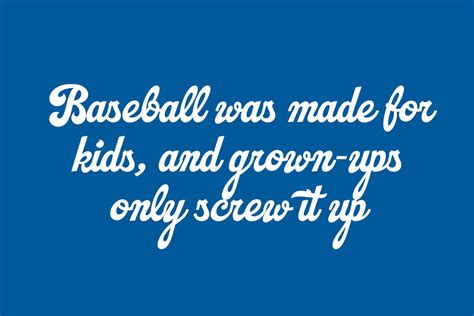
Decoding The Dodgers: Unveiling The Logo's Font Secrets
Decoding the Dodgers: Unveiling the Logo’s Font Secrets
Hey baseball fanatics, ever wondered about the iconic look of the Los Angeles Dodgers logo? Yeah, that classic script that’s been plastered across hats, jerseys, and everything in between for ages. Well, buckle up, because we’re about to dive deep and uncover the font secrets behind the Dodgers’ legendary branding. We’ll be talking about the Dodgers logo font , its history, and how it contributes to the team’s visual identity. Get ready to learn something cool about your favorite team!
The Dodgers’ Font: A Timeless Classic
Alright, guys, let’s get straight to the point: the primary font used in the Los Angeles Dodgers logo is a custom script. That’s right, it’s not a font you can just download from the internet and slap on your own merch. It was specifically designed for the team, making it super unique and instantly recognizable. The elegant, flowing script gives off a sense of timelessness and sophistication, perfectly representing the Dodgers’ rich history and legacy in the world of baseball. The curvature and style of the font, guys, have been the subject of debate and even some professional studies, but the truth is the font is considered proprietary to the team.
The font itself isn’t available for public use, which makes the Dodgers’ logo even more special. This exclusivity helps the team protect its brand and ensure that its visual identity remains consistent. It also adds a touch of mystique, making fans curious and interested in the story behind the logo. The unique script is a key element of the Dodgers’ identity, creating a strong connection with its fans and helping the team stand out from the competition. Think about it: when you see that script, you immediately think of the Dodgers, right? That’s the power of a well-designed logo and a carefully chosen font. The Los Angeles Dodgers logo is more than just a collection of letters; it’s a symbol of tradition, excellence, and the spirit of Los Angeles. So, next time you see that logo, remember the amount of consideration and care that went into creating it. It’s a testament to the importance of branding and visual identity in today’s world.
Over the years, the Dodgers have made minor adjustments to the script, fine-tuning it for better readability and visual appeal. The essence of the font has remained consistent, preserving the familiar look that fans have come to know and love. These subtle changes ensure the logo remains fresh and relevant while still honoring the team’s legacy. It’s a delicate balance that the Dodgers have managed to master. The meticulous approach to brand management extends beyond the font itself. The color palette, primarily featuring Dodger blue and white, plays a crucial role in the logo’s overall impact. The combination of the script font and the iconic color scheme creates a cohesive and instantly recognizable brand identity that has become synonymous with the Dodgers.
A Deep Dive into the Font’s Characteristics
Let’s get down to the specifics, shall we? This font is all about that smooth, flowing script, the defining element of the Dodgers’ branding. It’s got those elegant curves and a sense of motion that captures the energy of a baseball game, you know? The script’s design incorporates a balance of grace and strength, mirroring the Dodgers’ on-field performance. The letters connect seamlessly, creating a harmonious and aesthetically pleasing visual. Each curve and stroke has been carefully crafted to give the logo its unique personality. The font’s design subtly influences the overall feeling of the team’s brand. It communicates a sense of tradition, sophistication, and timelessness. The font’s character is a critical element in the team’s overall image and appeal. The logo’s visual design is a carefully considered project that takes time and effort to get right. This ensures the design is consistent with the team’s values and brand identity.
When we analyze the font, we notice features such as the slant of the letters, the varying thickness of the strokes, and the way the letters connect. The slant gives the logo a sense of dynamism. The variations in stroke thickness add depth and visual interest. The way the letters connect creates a feeling of unity and flow. When the font is applied to a hat or jersey, it comes alive and becomes a statement of identity. The script font’s legacy extends beyond baseball. It has become a cultural icon, representing Los Angeles and its passion for sports. The Dodgers’ logo is an example of effective branding and design, standing the test of time. The logo remains instantly recognizable and beloved by fans of all ages and backgrounds. The font’s design has become a symbol of excellence and tradition in the world of sports. The team’s careful management of its brand identity continues to resonate with fans, creating a lasting bond.
Consider the way the “D” curls and the “s” elegantly sweeps. These characteristics are key in distinguishing the Dodgers’ script from other similar fonts. The designers understood how to create a font that speaks to the team’s spirit and values. The lettering must be distinct and memorable, something that will catch the eye. The font is an art form. It’s also a powerful branding tool that sets the team apart and promotes recognition. The details matter, from the weight of the lines to the spacing between letters. They all contribute to the overall visual impression. The design of the font is an important component of the team’s brand identity. It adds to the team’s ability to connect with fans and create a lasting legacy.
Over time, the Dodgers’ logo has seen some changes, but the core script font has been a constant. The Dodgers’ logo, as we know it, is a modern iteration of a design that’s been evolving for decades. Back in the day, the team used a slightly different script font, and the colors and overall design have also been refined. However, the current iteration is the one that really stands out. The changes have been more about refining the logo rather than a complete overhaul. The team has always strived to maintain a consistent brand identity. These tweaks have made the logo more visually appealing and effective across different mediums. Every little design change has been done to keep up with contemporary design trends. The current logo is not only timeless but also easily recognizable, even for fans who may not be familiar with the team’s history. The way the Dodgers have managed their logo is a great example of brand management.
As the team moved from Brooklyn to Los Angeles, the logo underwent further changes. The Dodgers’ logo is a story of adaptation and refinement, reflecting the team’s journey through time. The team has always strived to strike a balance between tradition and modern appeal. The move to Los Angeles brought a fresh perspective to the team’s branding, with a focus on capturing the spirit of the city. These changes helped the team connect with new fans while still honoring its history. The team’s current logo is the result of years of refinement, becoming a symbol of baseball. It embodies the team’s history, the team’s values, and its connection with its fans. It’s an iconic piece of sports history that will continue to evolve. Each version of the logo tells a story. The Los Angeles Dodgers logo is more than just a visual element, it is a key piece of the team’s identity. It embodies the team’s spirit, the team’s values, and its connection with the fans.
Similar Fonts and Their Influence
While the Dodgers’ font is a custom creation, you might have noticed some similarities to other script fonts out there. Think about fonts like Brush Script or even some vintage baseball-inspired designs. The world of typography is vast and interconnected, and you’ll often see common design elements and styles. These fonts share the same characteristics that makes the Dodgers’ logo so appealing: the graceful curves, the flowing connections, and the sense of movement. This makes the logo feel energetic and dynamic. These elements are key to the design’s success. The Dodgers’ script stands out because of its unique design elements. The specific details, such as the slant of the letters, the stroke thickness, and the letter connections, give the logo its unique personality. These design choices create a harmonious and aesthetically pleasing visual. The logo isn’t just a collection of letters. It’s a well-crafted visual experience. By considering every aspect of the design, the team’s visual identity has become iconic.